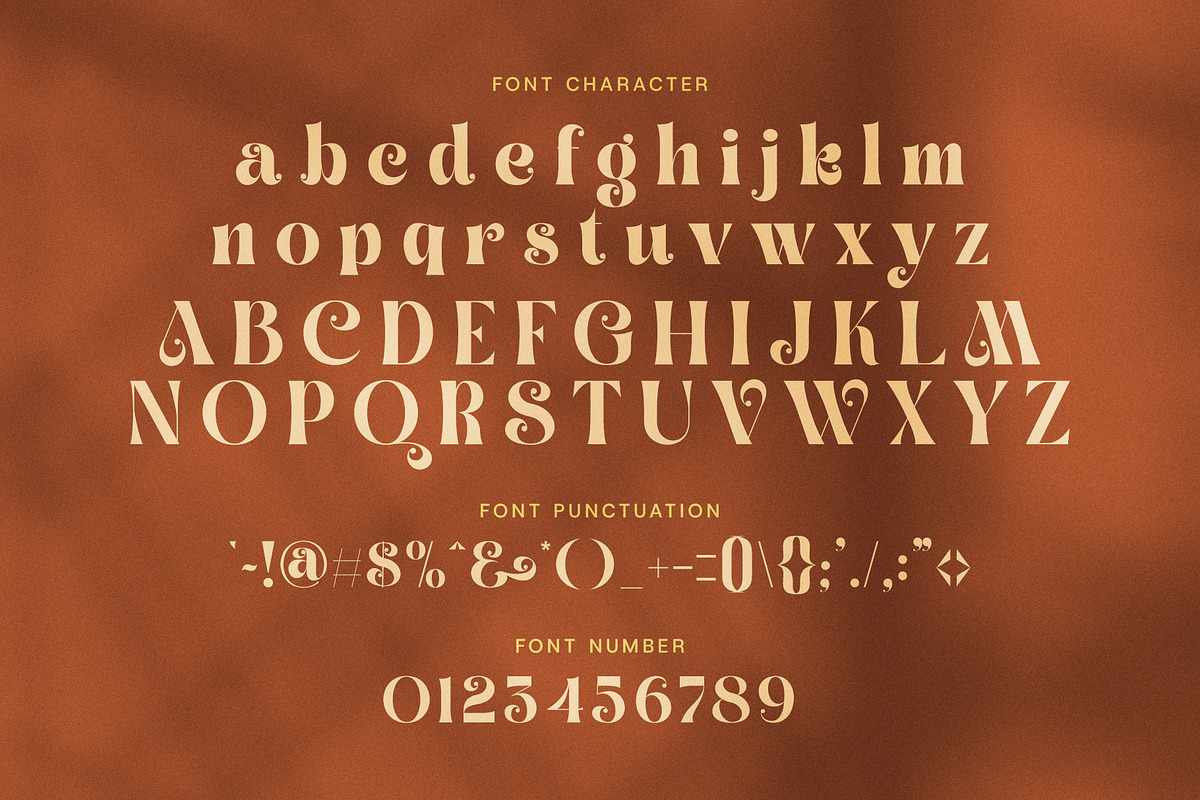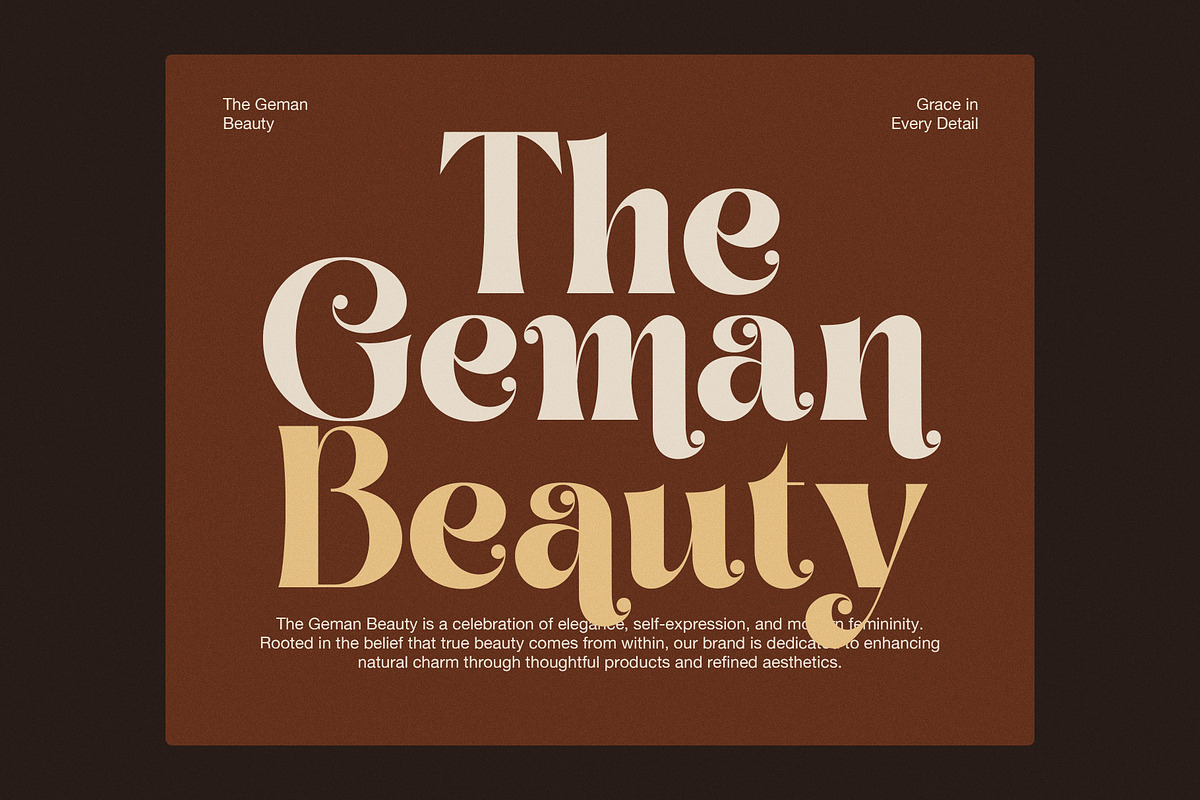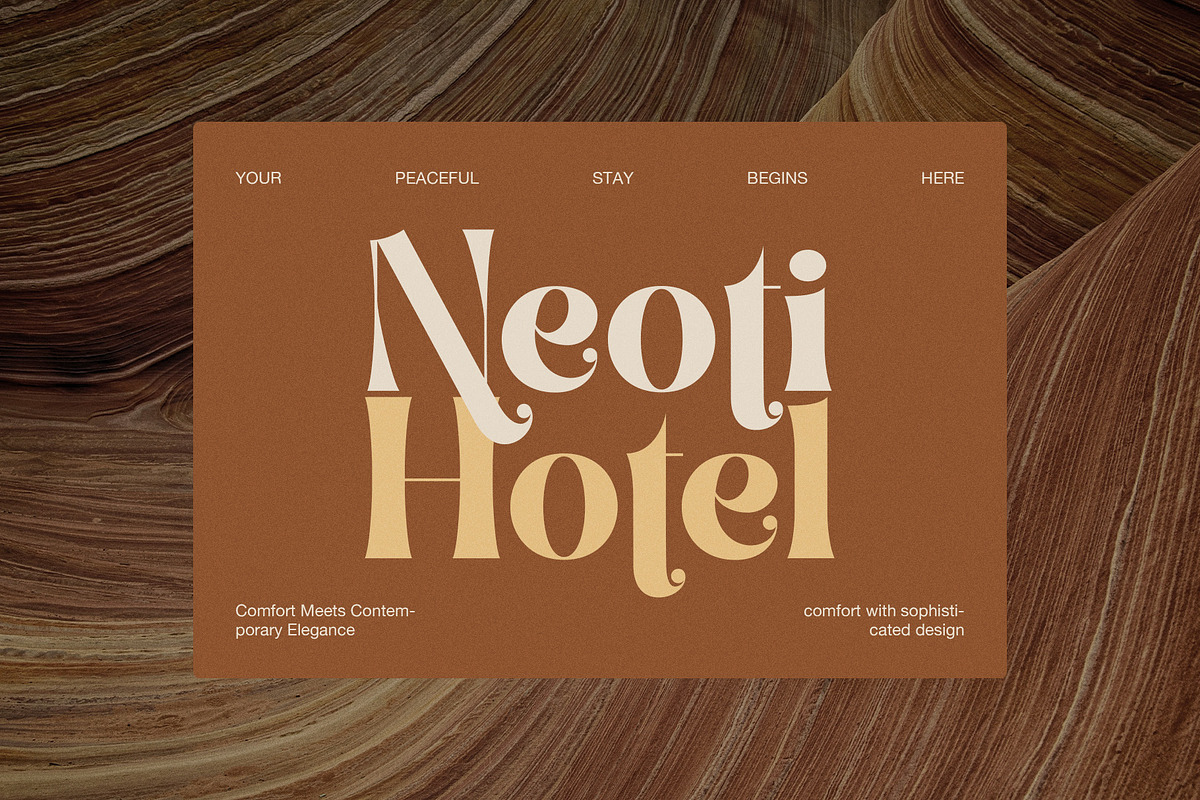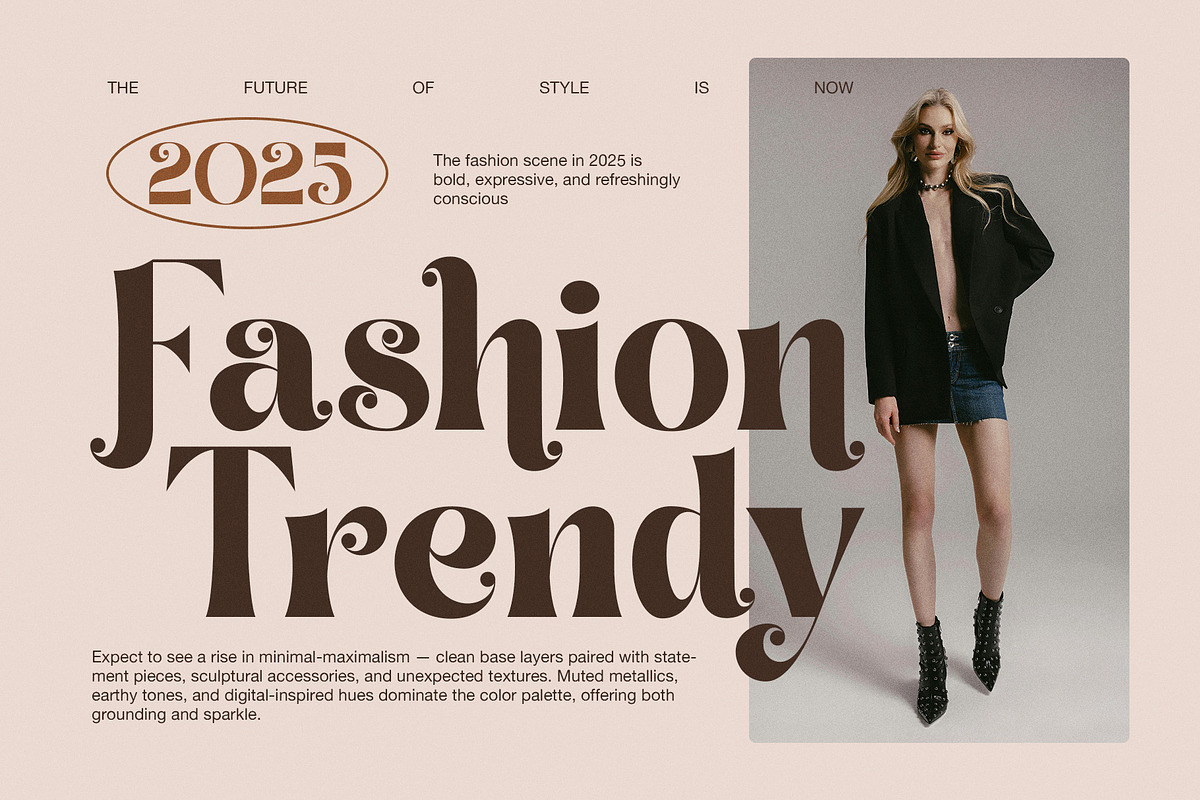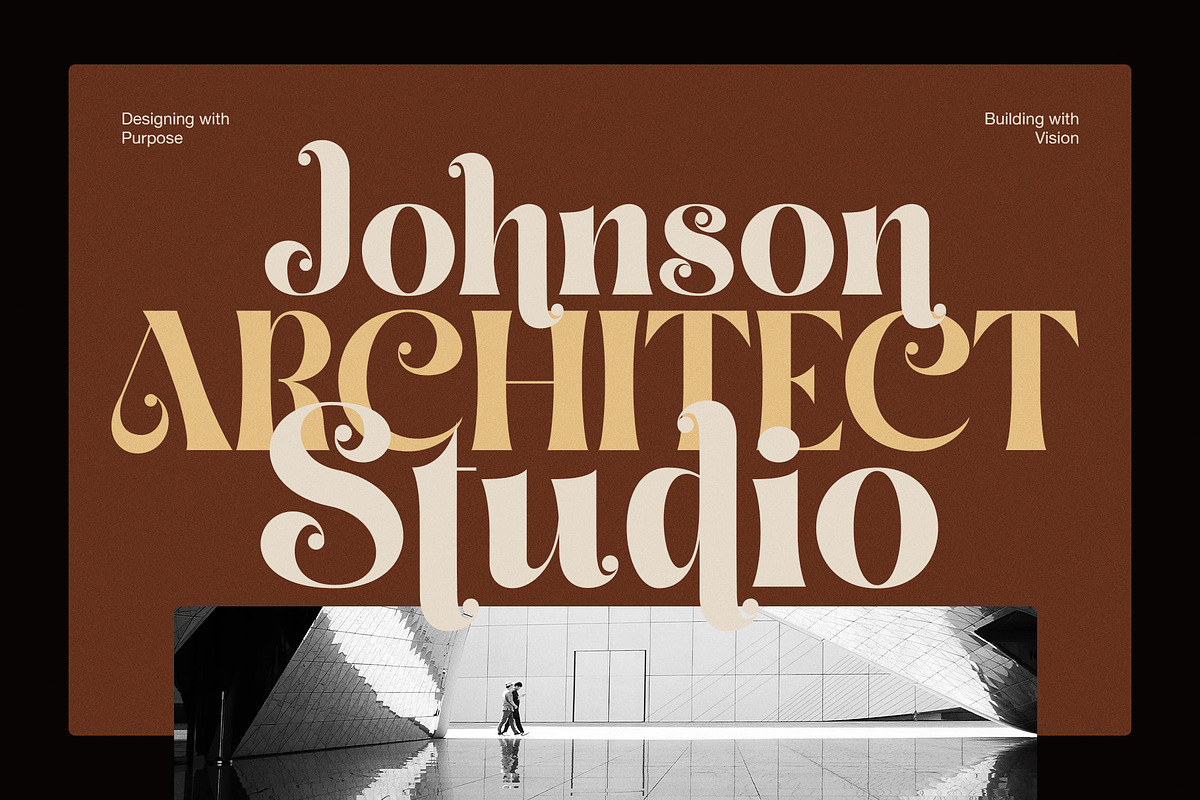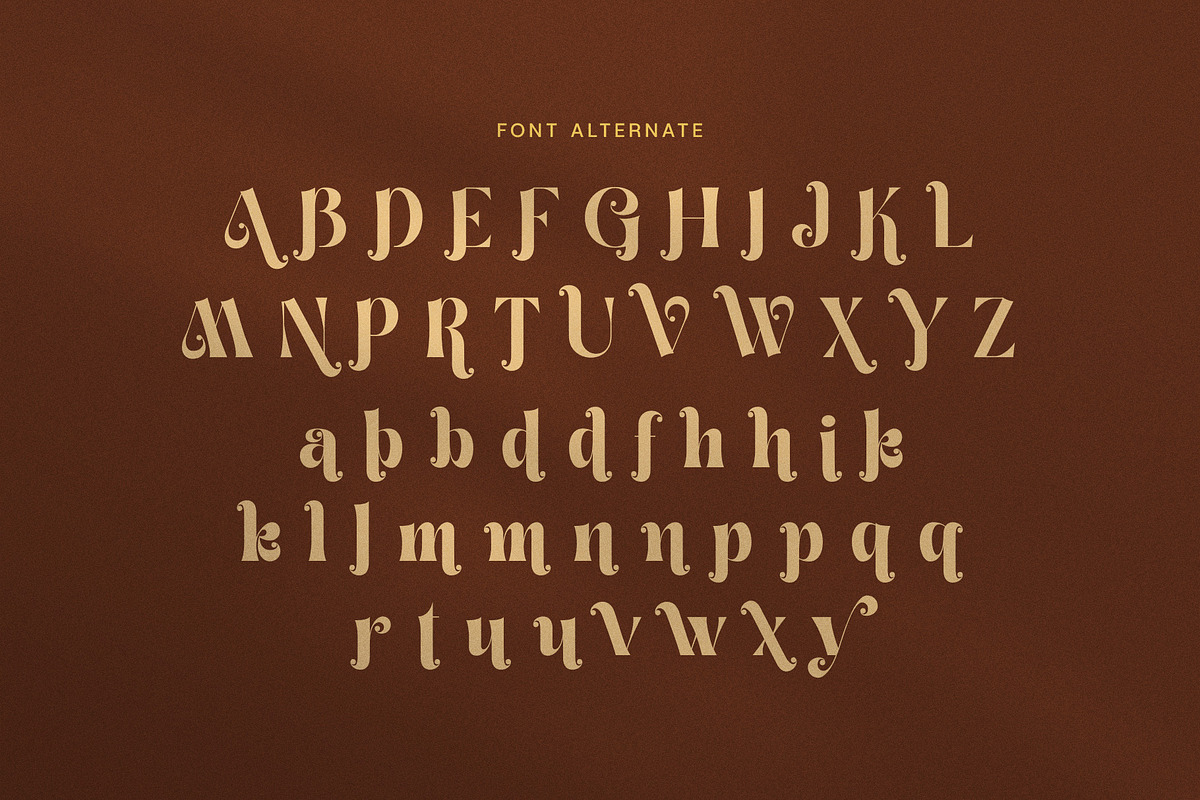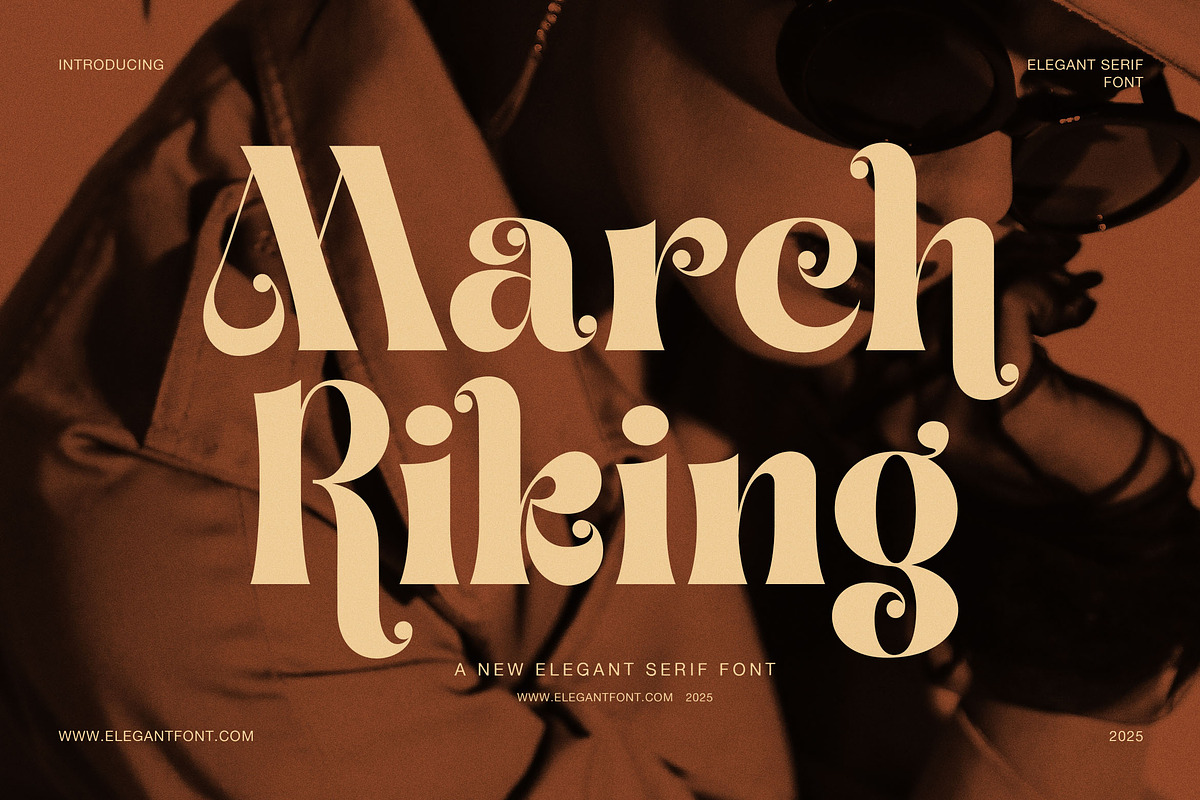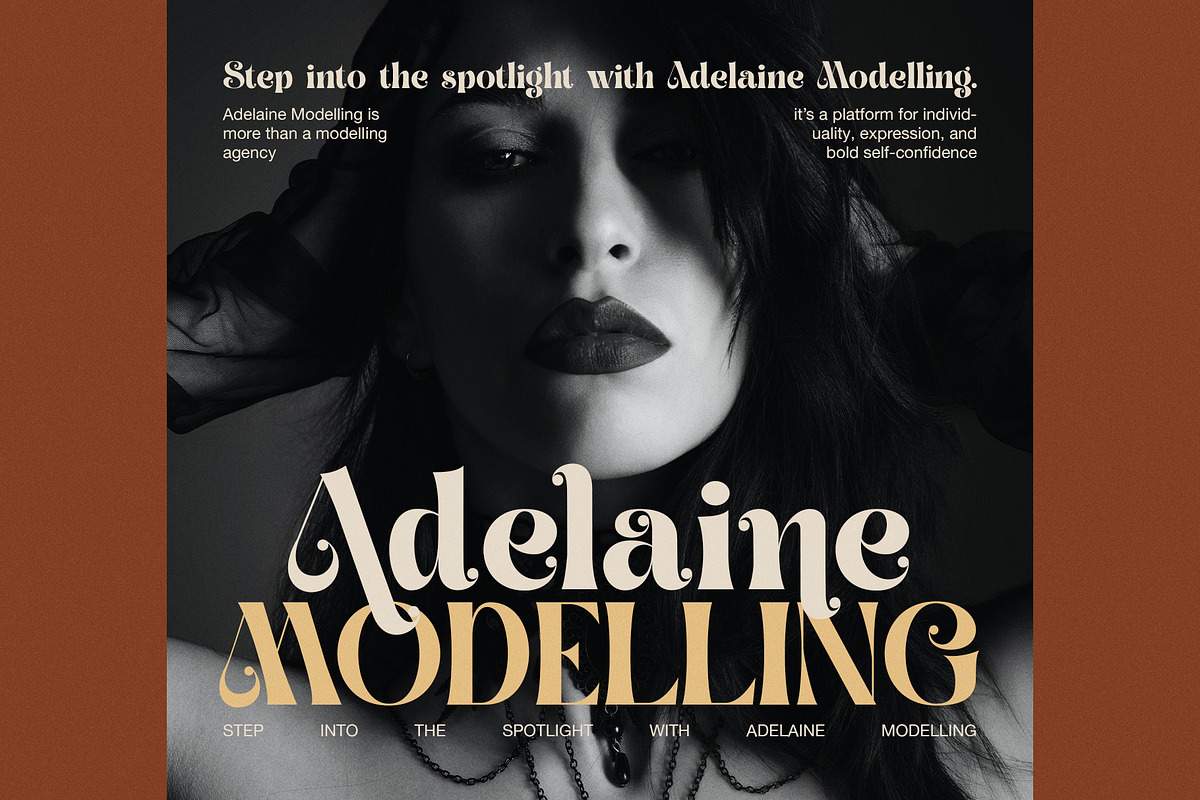
March Riking Elegant Vintage Serif F
March Riking is an elegant vintage serif font that blends classic charm with expressive modern styling. Its letterforms feature strong contrast between thick stems and soft curves, which creates a warm yet sophisticated appearance. At the same time, the rounded terminals and teardrop details introduce a decorative touch that feels graceful rather than ornate. Therefore, the font captures attention while remaining friendly and readable.
One of the most distinctive characteristics of March Riking is its flowing, curled endings. Many letters finish with soft spiral shapes or bulb-like terminals, giving each word a gentle rhythm and handcrafted personality. In addition, the slightly condensed proportions help headlines appear compact yet powerful. Because of this balance, the typeface performs beautifully in large display settings where elegance and character are equally important.
In the example layouts, March Riking adapts effortlessly across fashion, hospitality, and lifestyle themes. For instance, brand titles feel luxurious and inviting, while editorial headlines gain a soft, feminine tone. Moreover, the font pairs especially well with warm color palettes, textured backgrounds, and minimalist photography. On neutral surfaces, it looks clean and contemporary; however, on rich tones, it feels romantic and vintage. As a result, designers can achieve multiple moods without changing the typeface.
March Riking is ideal for many premium design uses, including:
Fashion branding and boutique logos
Beauty and skincare packaging
Hotel and hospitality identities
Editorial headlines and magazine covers
Wedding stationery and invitations
Lifestyle websites and social media graphics
Furthermore, the font includes uppercase and lowercase characters, numbers, punctuation, stylistic alternates, and decorative ligatures. These features provide flexibility while maintaining a consistent visual voice. It also pairs smoothly with simple sans-serif fonts, which helps create clear hierarchy in modern layouts.
Overall, March Riking is a statement typeface that communicates elegance, warmth, and creativity. It feels timeless yet fresh, decorative yet controlled. If you want typography that adds personality without losing sophistication, this elegant vintage serif font offers a distinctive and memorable solution for high-end design projects.